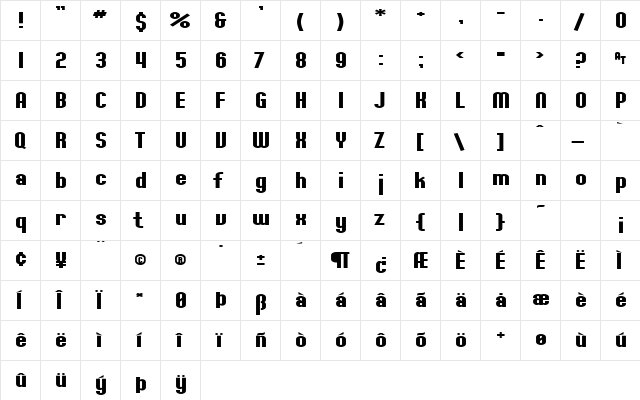
SF Willamette Extended Bold
Design Context for SF Willamette Extended Typeface
SF Willamette Extended takes a measured approach to typography — its balanced proportions and neutral character make it a reliable workhorse for both digital and print work. The heavy weight commands attention and anchors typographic hierarchies.